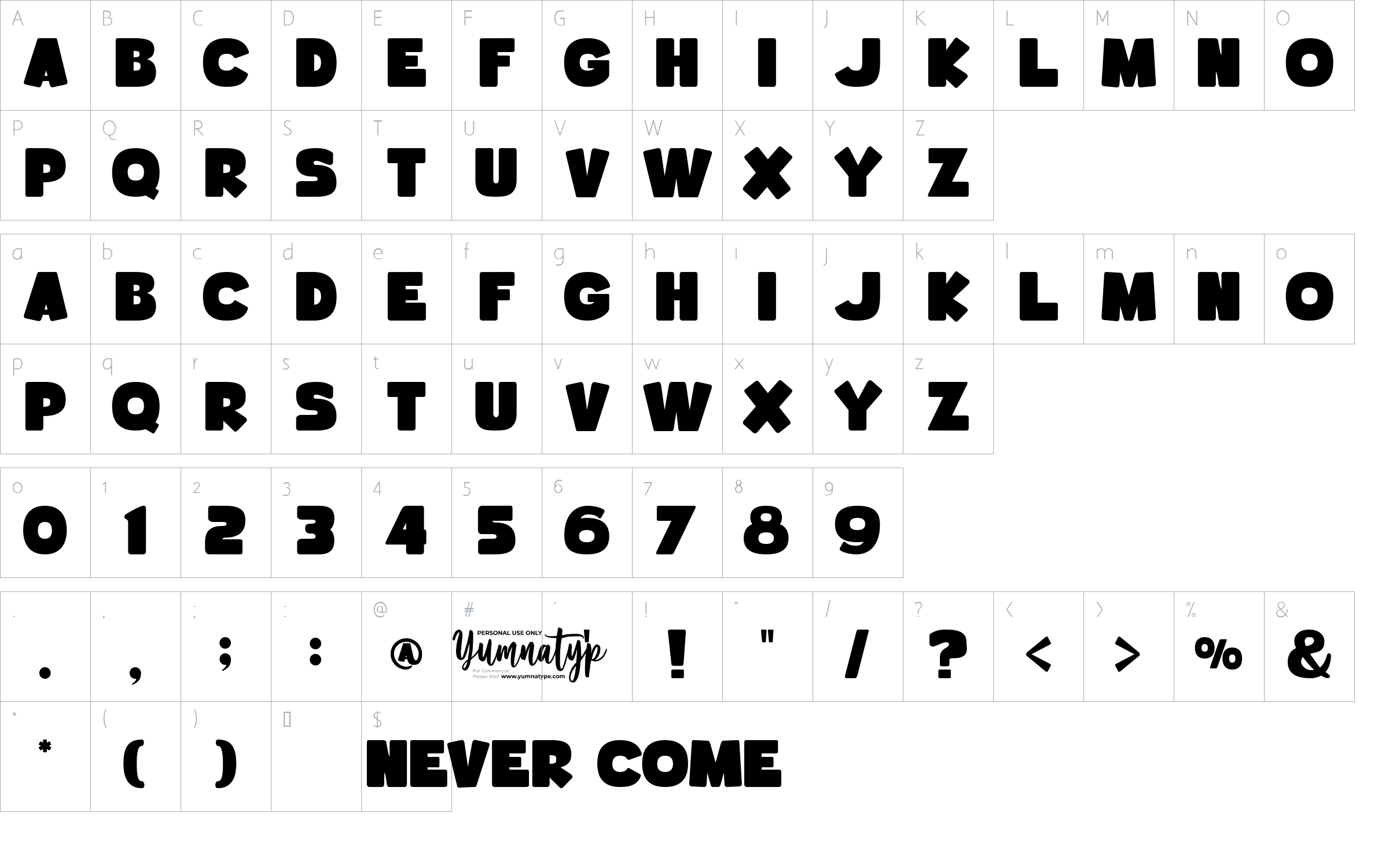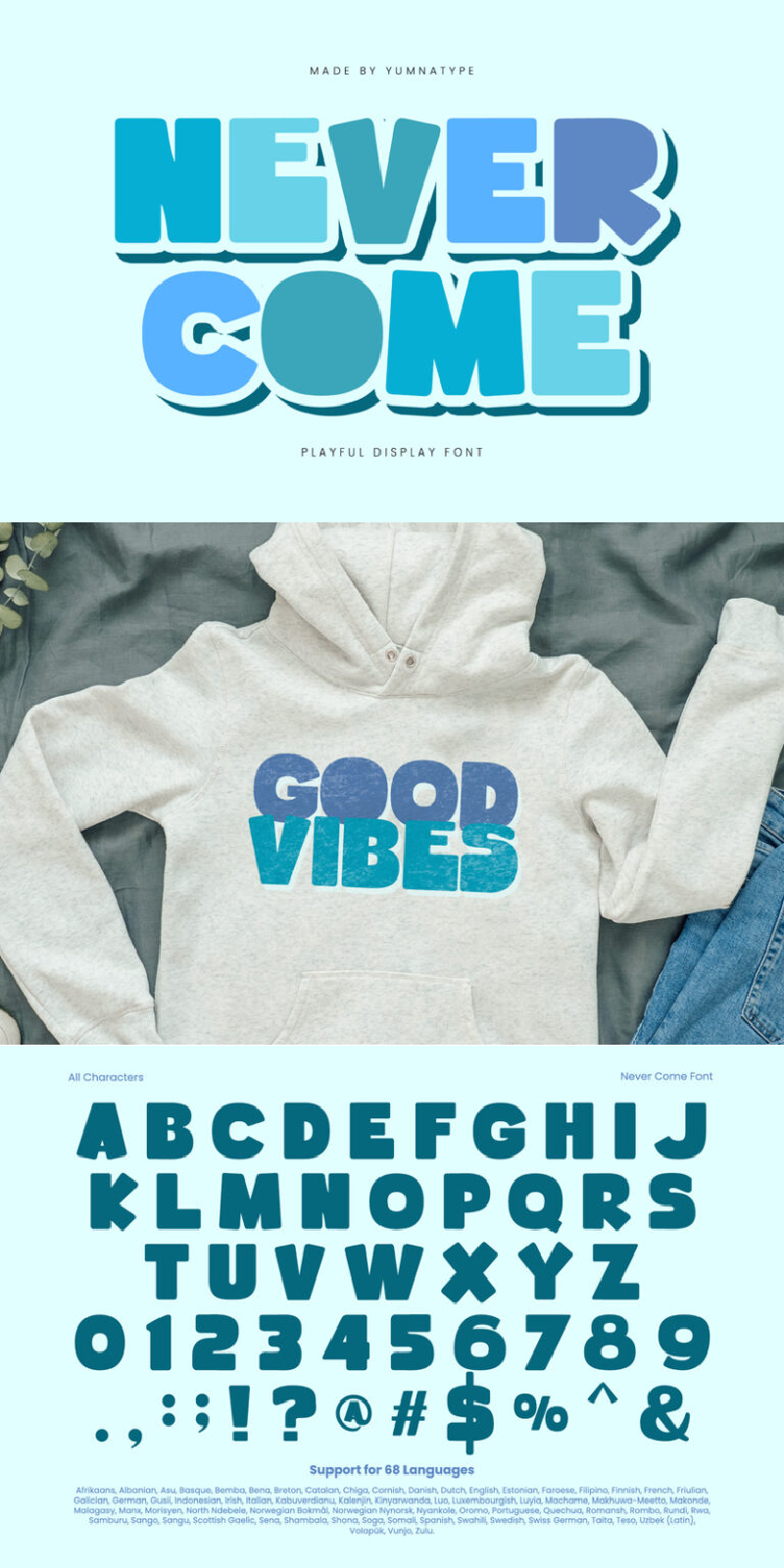
Never Come Font
About Never Come
Never Come is a vibrant and playful display font that radiates joy and energy. Its very thick weight and low contrast create a bold presence. On the other side, the rounded shapes soften its impact, adding a friendly and approachable feel. In addition, enjoy the features here.
Never Come fits in headlines, logos, posters, flyers, branding materials, print media, editorial layouts, and many more designs. Find out more ways to use this font by taking a look at the font preview.